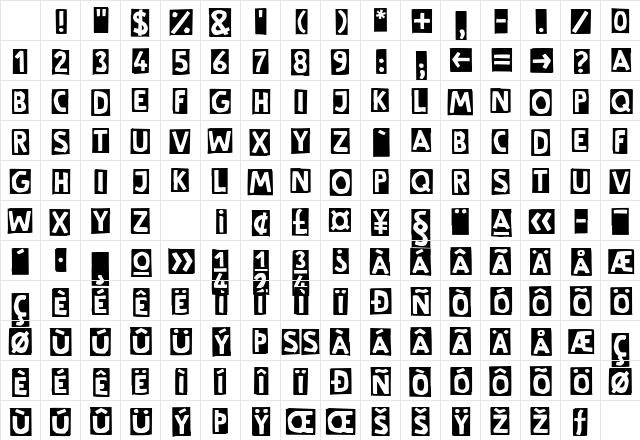
LTSchere Regular
Designer: Georg Kugler
Design Context for LTSchere
LTSchere is a composed and adaptable typeface that performs quietly and consistently across a wide range of design contexts.